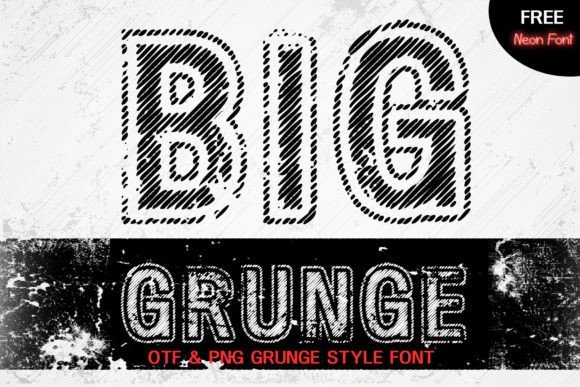
The Ultimate Game-Changer in Font Design: Big Grunge Font
Have you ever been in the midst of a creative project, staring blankly at a blank page or screen, searching for that one spark to ignite your imagination? For designers, this moment is all too familiar. But what if I told you there’s a secret ingredient that can take your creations from bland to grand? Enter the Big Grunge Font, a sport display font that’s about to revolutionize the way you design.
This heavily distressed texture font is not just a pretty face; it’s a powerful tool that can elevate any topic or project you throw at it. Whether you’re designing a bold advertisement, a gritty poster, or a rustic website, the Big Grunge Font is sure to make your creations stand out from the crowd. Its versatility and unique texture make it an invaluable asset to any designer’s library.
Big Grunge Font Key Features
- Font Family: Big Grunge Font is a distressed, grunge-style font family available in multiple weights and styles.
- Unique Characteristics: Big Grunge Font features a distressed, hand-stamped aesthetic with imperfections and texture, giving it a unique, vintage look that’s perfect for music, fashion, and streetwear designs.
Designer Review: Big Grunge Font
Overall, I think the Big Grunge Font has some great qualities, but it also has some limitations. Let’s start with what works well.
- ✨ I love the distressed texture of this font – it gives a unique, DIY feel that’s perfect for music, art, or grunge-inspired designs.
- ✨ The font is highly customizable, which means you can adjust the size, color, and texture to fit your design needs.
- ✨ The font is also available in a range of weights, from light to bold, which makes it versatile for different design applications.
- ⚠️ The font can be a bit too busy for some designs, with the texture and grunge effects making it hard to read in certain contexts.
- ⚠️ The font is not as legible at small sizes, which can make it challenging to use in mobile or web design applications.
- ⚠️ The font’s distressed texture can also make it harder to use in designs where clarity and precision are key.
Overall, I think the Big Grunge Font is a great choice for designers who want to add a unique, edgy feel to their designs. Just be mindful of the limitations and use it thoughtfully.
Tips for Getting the Most Out of Big Grunge Font
For the best results, use Big Grunge Font with bold, distressed, or distressed rough effects. This will emphasize the font’s grungy aesthetic.
Big Grunge Font is perfect for:
- Musical or artistic posters
- Band or artist branding
- Distressed or vintage-themed designs